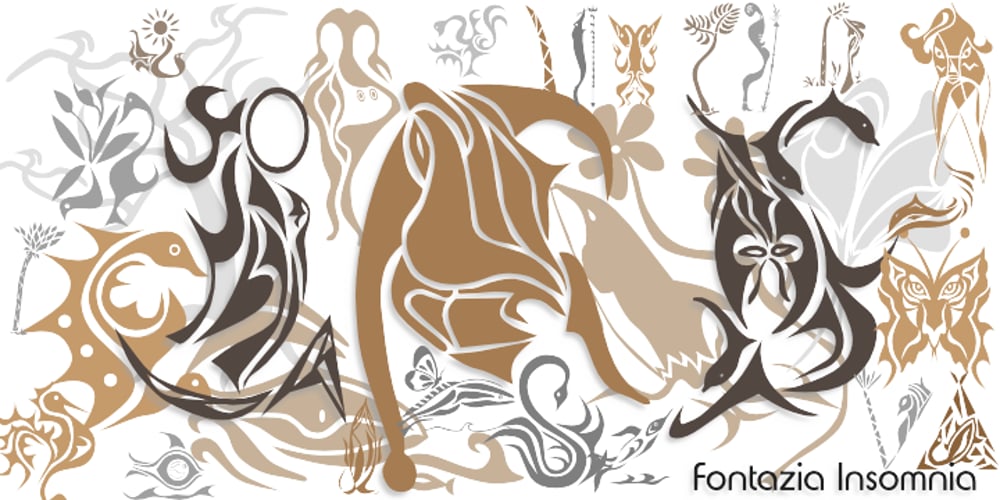
Fontazia Insomnia
Fontazia Insomnia font
Fontazia Insomnia Font Family was designed by Denise Koehler and published by Deniart Systems. Fontazia Insomnia contains 1 styles and family package options. Let your night images come to life! The Fontazia Insomnia set features a strange and unusual assortment of surrealistic hand-drawn images – a tribute to the nocturnal spirits that seem to come to life during those hot sleepless summer nights. These characters are sure to add a little fun and mystery to any project.